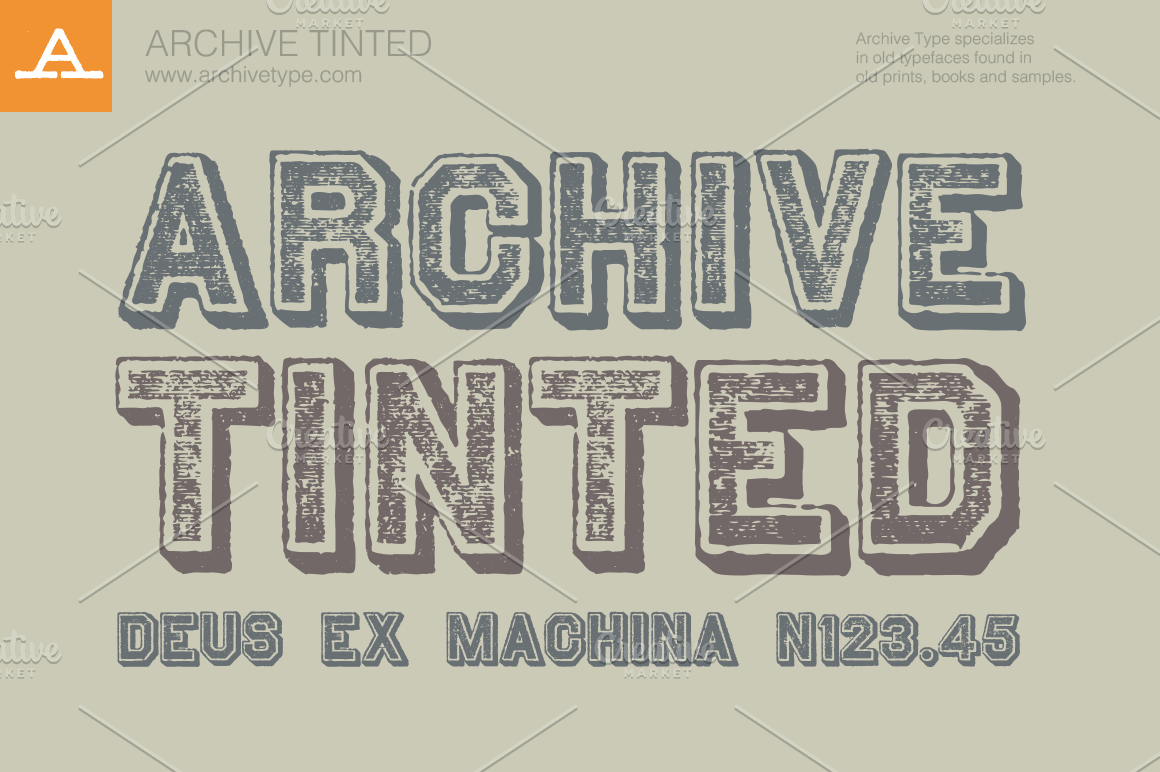
Archive Tinted Font is perfect for historical museums, vintage document reproductions, antique shop branding, heritage preservation projects, archival research materials, sepia photography exhibitions, nostalgic brand identities, historical society publications, vintage-inspired packaging, and authentically preserved marketing communications.
Archive Tinted Font is exciting because it captures the patinated beauty and historical resonance of aged documents with its subtly weathered letterforms that seem touched by time's gentle passage and carry the warm nostalgia of photographs fading to sepia tones. Its historically evocative character design reflects both the careful preservation required for archival materials and the romantic appeal that makes vintage aesthetics eternally captivating, making it perfect for brands celebrating historical authenticity and nostalgic beauty.
Archive Tinted Font family includes thin, light, regular, medium, bold, and black weights, each with corresponding italic versions. The font family also features vintage ornaments, historical ligatures, archival symbols, and nostalgic decorative elements that enhance its aged aesthetic and heritage preservation versatility.
This historically evocative typeface represents the perfect fusion of archival authenticity and nostalgic appeal. Archive Tinted Font Free Download allows designers to experience its vintage potential before making a commercial commitment. The font's ability to convey both historical gravitas and romantic nostalgia makes it ideal for museums, heritage brands, and cultural institutions targeting audiences seeking authentic historical experiences and vintage aesthetic appreciation.
Whether you're developing heritage organization identities, creating historical exhibition materials, or designing vintage-inspired communications, Archive Tinted Font brings an unmistakable sense of historical authenticity and nostalgic charm to every project. Its aged character and archival heritage create powerful connections that transport audiences to bygone eras and evoke the romantic appeal of historical preservation.
The font's versatility excels in cultural and heritage environments where historical authenticity and nostalgic beauty are paramount. Its vintage character makes it particularly effective for museums, antique dealers, heritage sites, and cultural organizations seeking to establish authentic relationships with history enthusiasts and audiences who appreciate the romantic beauty of aged documents and vintage aesthetics.
For designers working on projects requiring genuine historical character and vintage appeal, Archive Tinted Font provides an exceptional solution. Its authentically aged presence and comprehensive heritage elements offer the tools needed for creating truly nostalgic communications, while its historical resonance ensures your designs capture the romantic beauty and cultural significance that defines the most treasured archival materials and heritage preservation excellence.